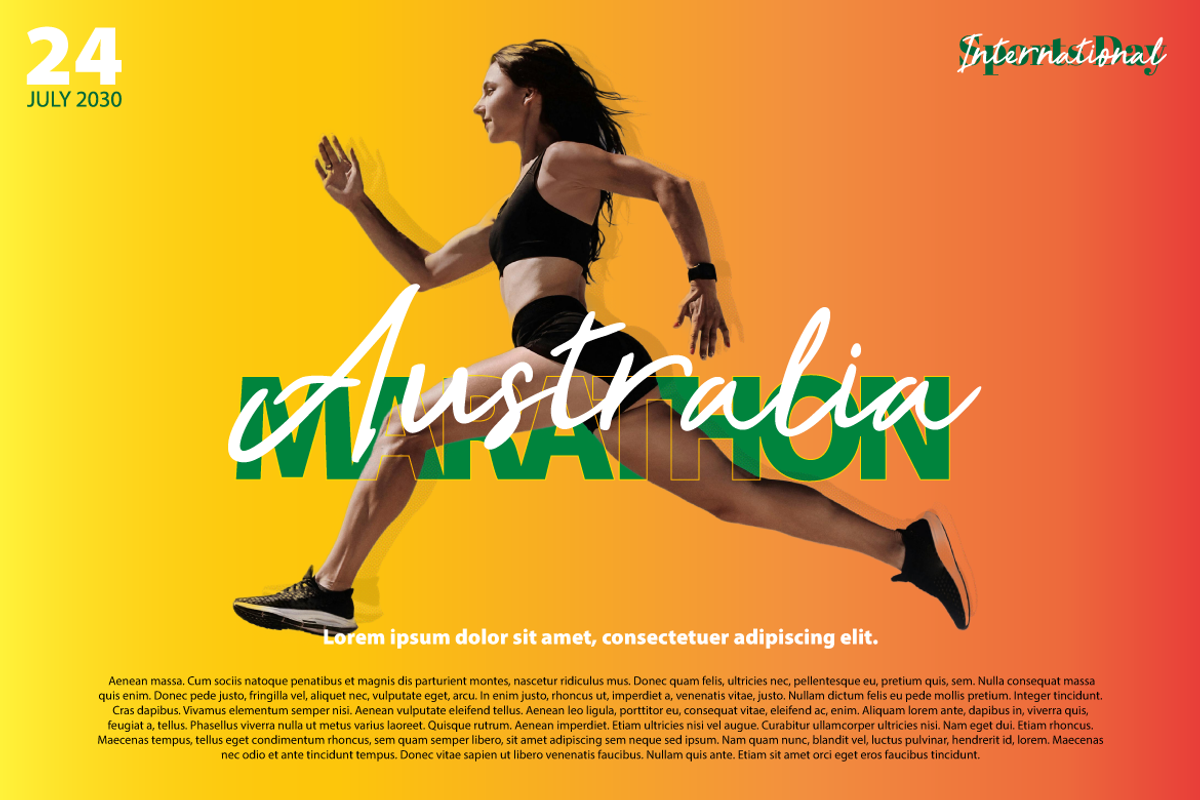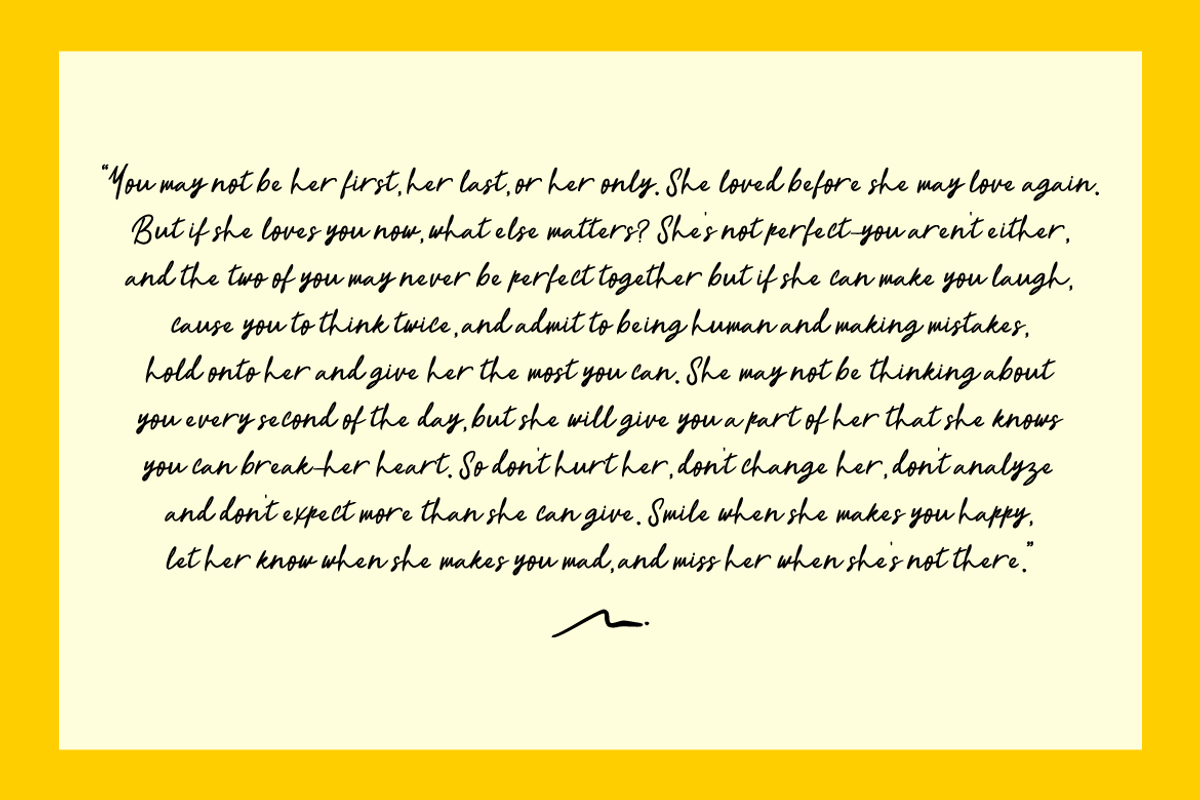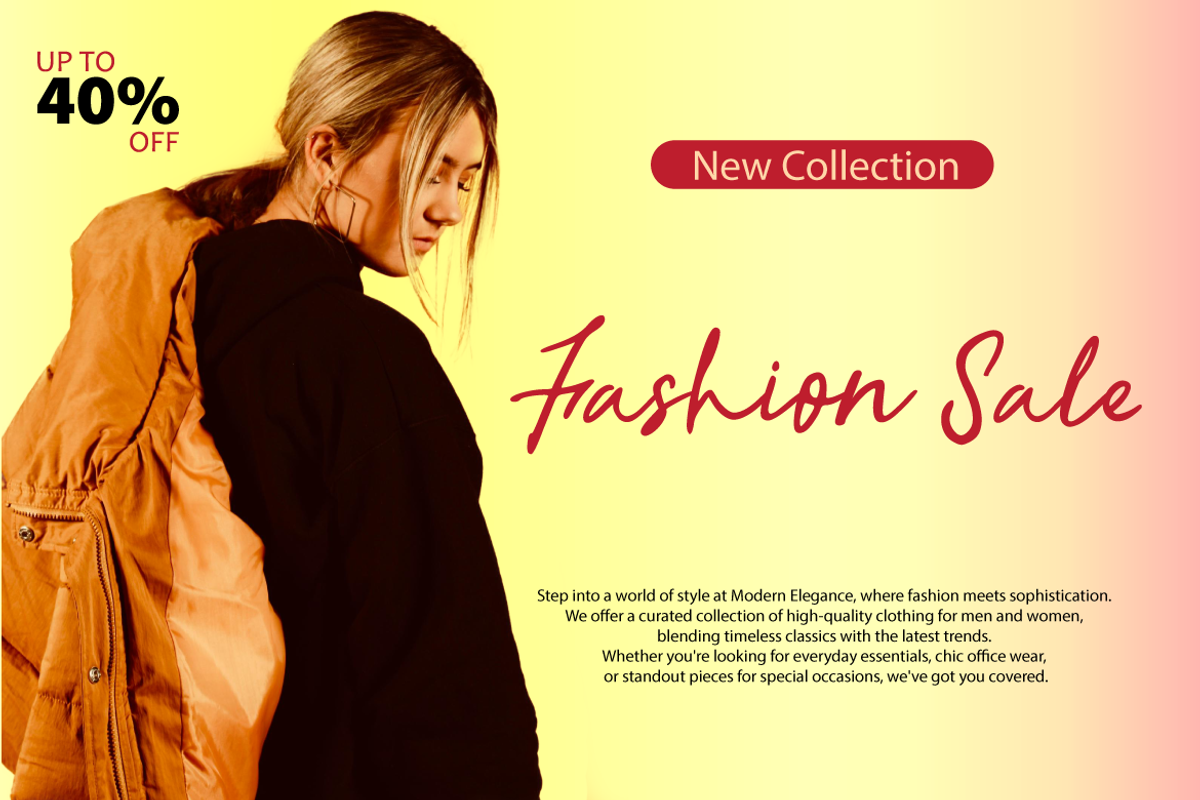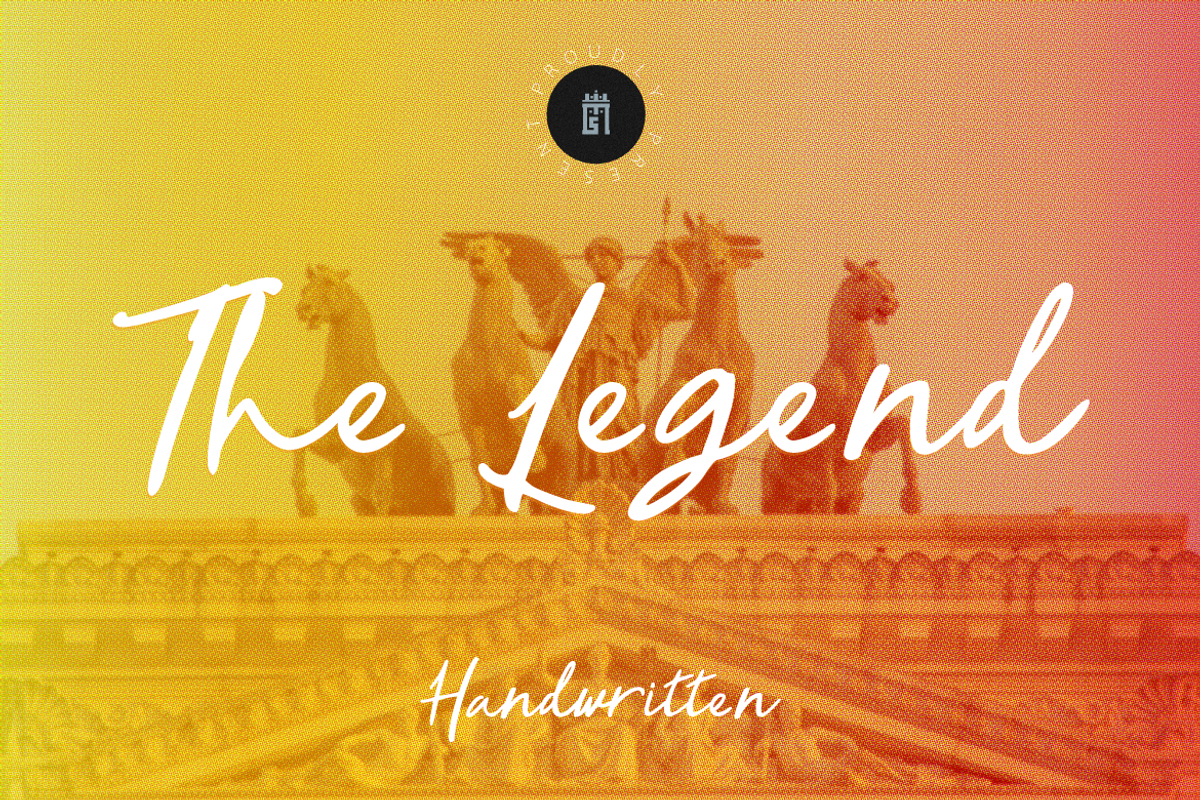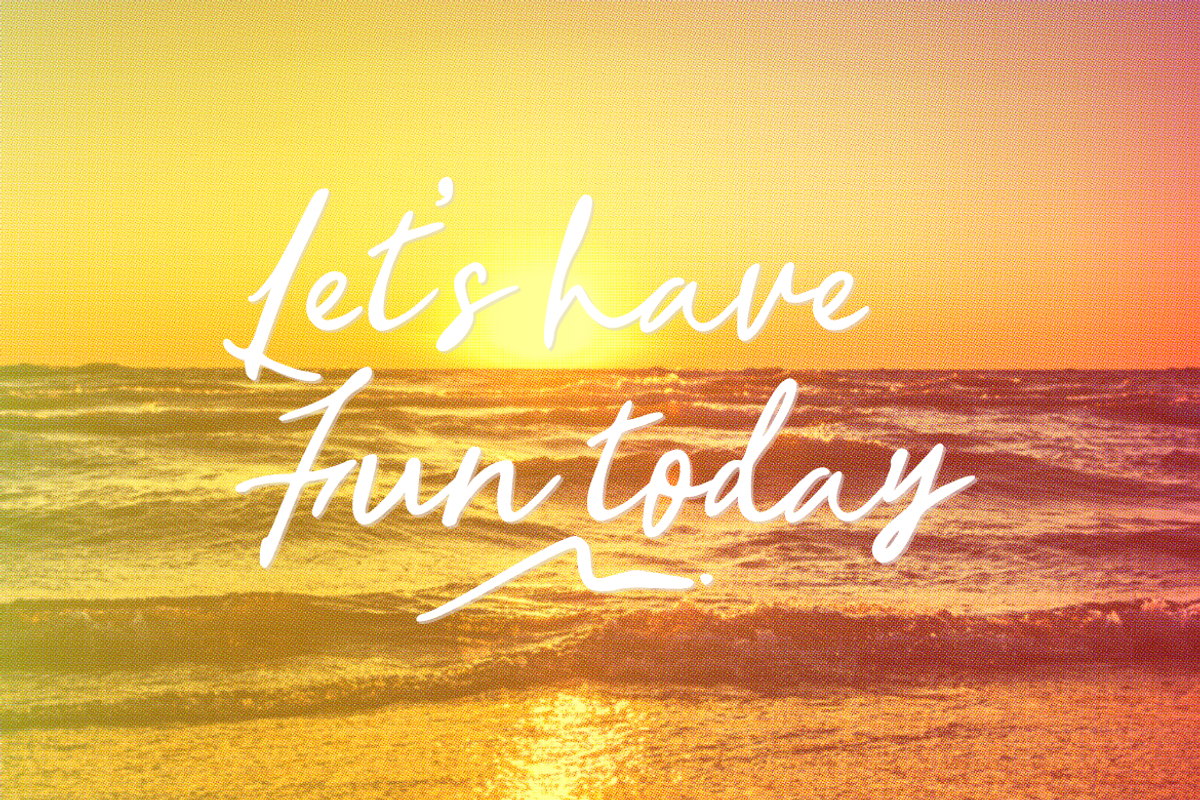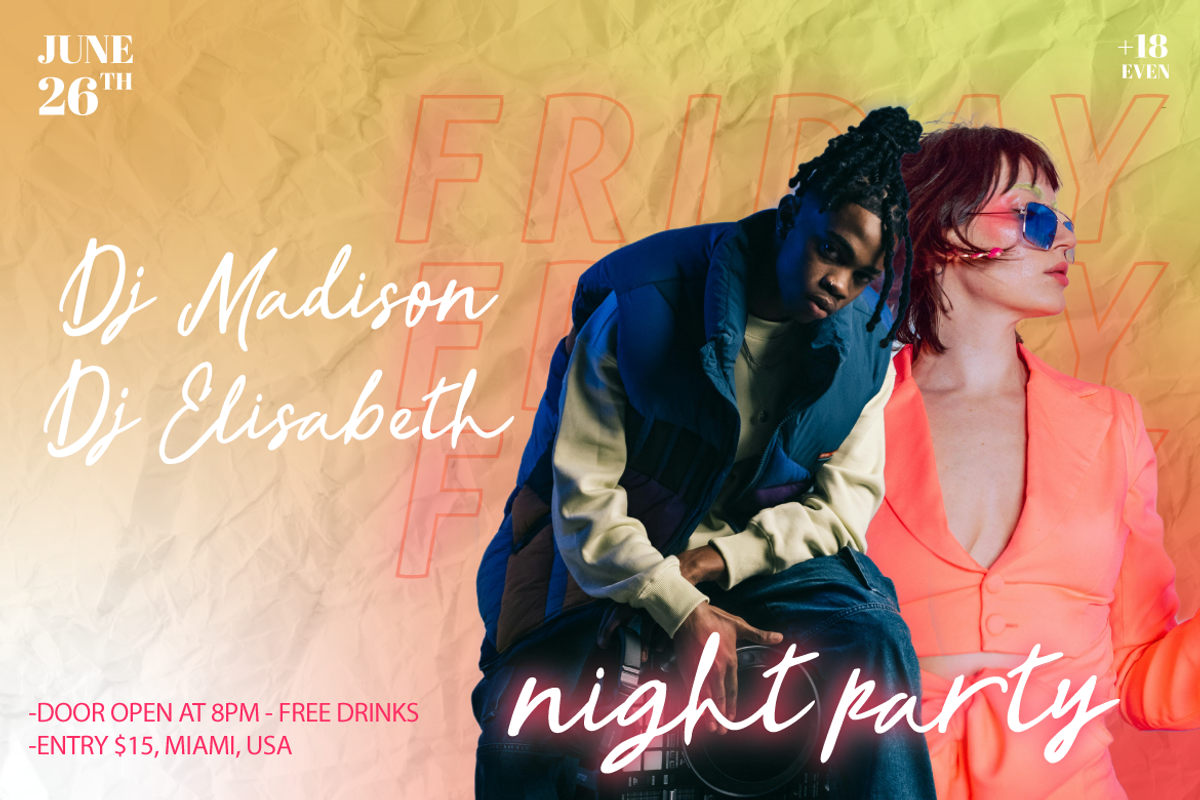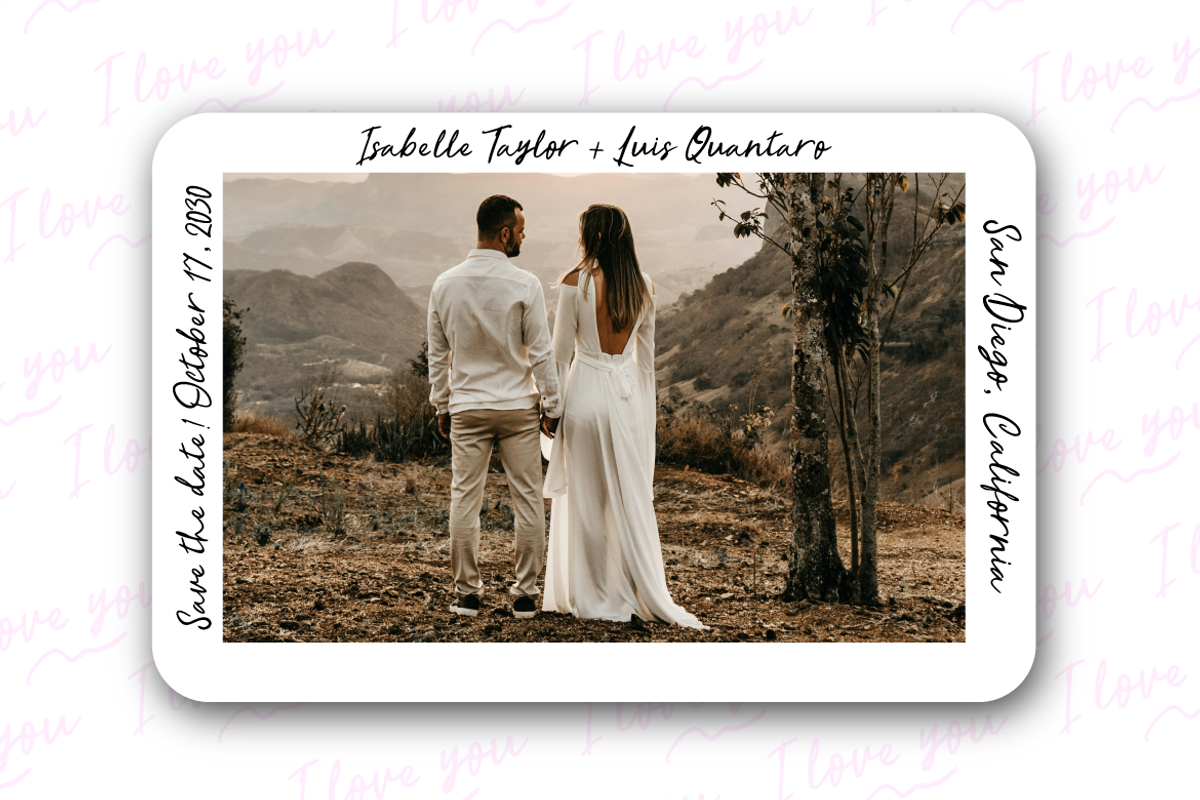
The Legend
This handwritten font captures the charm and authenticity of natural handwriting. With its fluid strokes and subtle imperfections, it brings a personal and expressive touch to any design. Perfect for invitations, greeting cards, logos, or social media graphics, this font adds warmth and personality to your text. Its casual yet elegant style makes it versatile for both playful and professional projects.